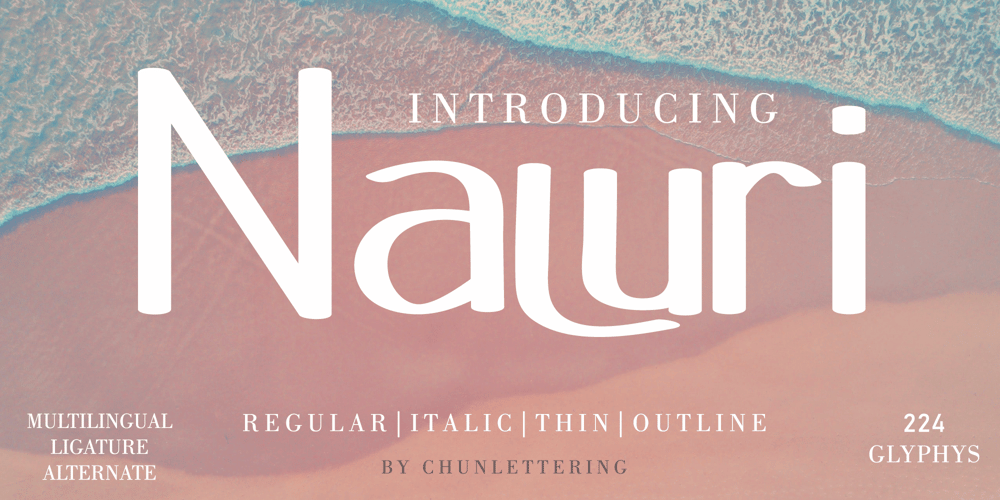
Naluri Font Family was designed by Imron Rosyidi and published by Chunlettering. Naluri contains 4 styles and family package options. Naluri – is a beautiful, smooth and clean sans serif font, created by natural strokes making it look flawless with plenty of alternatives to help your creative needs. This font is perfect for logo branding, product designs, quotes, posters, display, website, invitation card, greeting card, headline, website and various other project creations that require beautiful clean touches.Naluri includes 4 weight styles which each include 224 glyphs.Features: 4 Font Weight Uppercase & Lowercase Multilingual Support Number & Punctuation Alternatives & Ligatures Thank you, for supporting us.